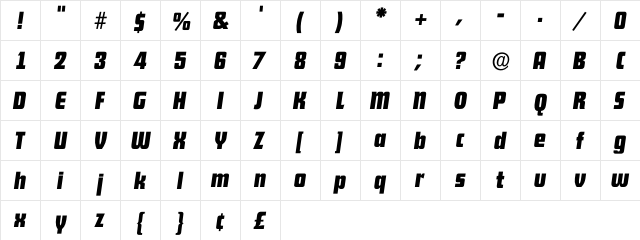
FutanaItal Regular
Design Context for FutanaItal Typeface
FutanaItal offers clean, dependable letterforms without strong stylistic allegiance, making it a practical choice for designers who need flexibility.